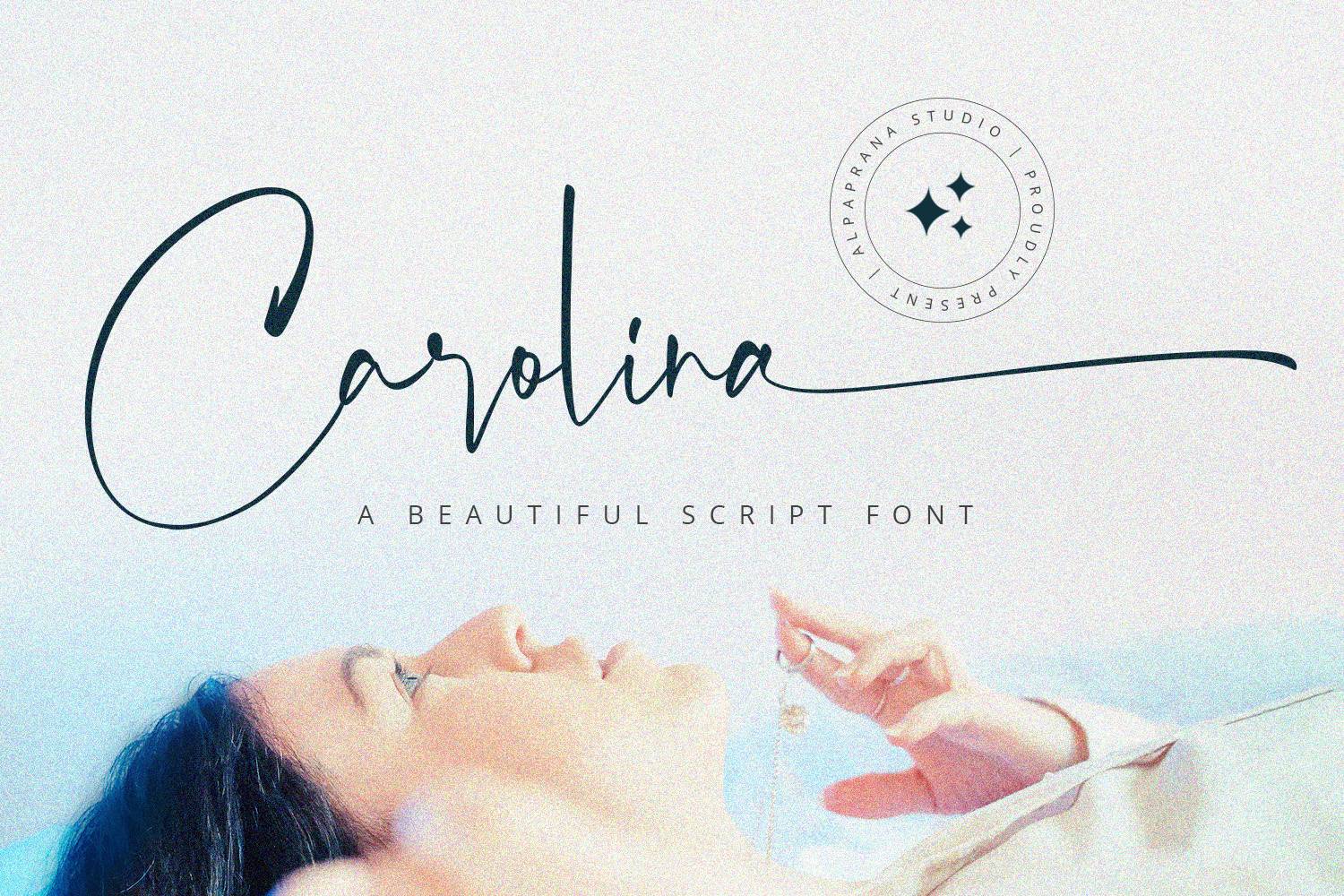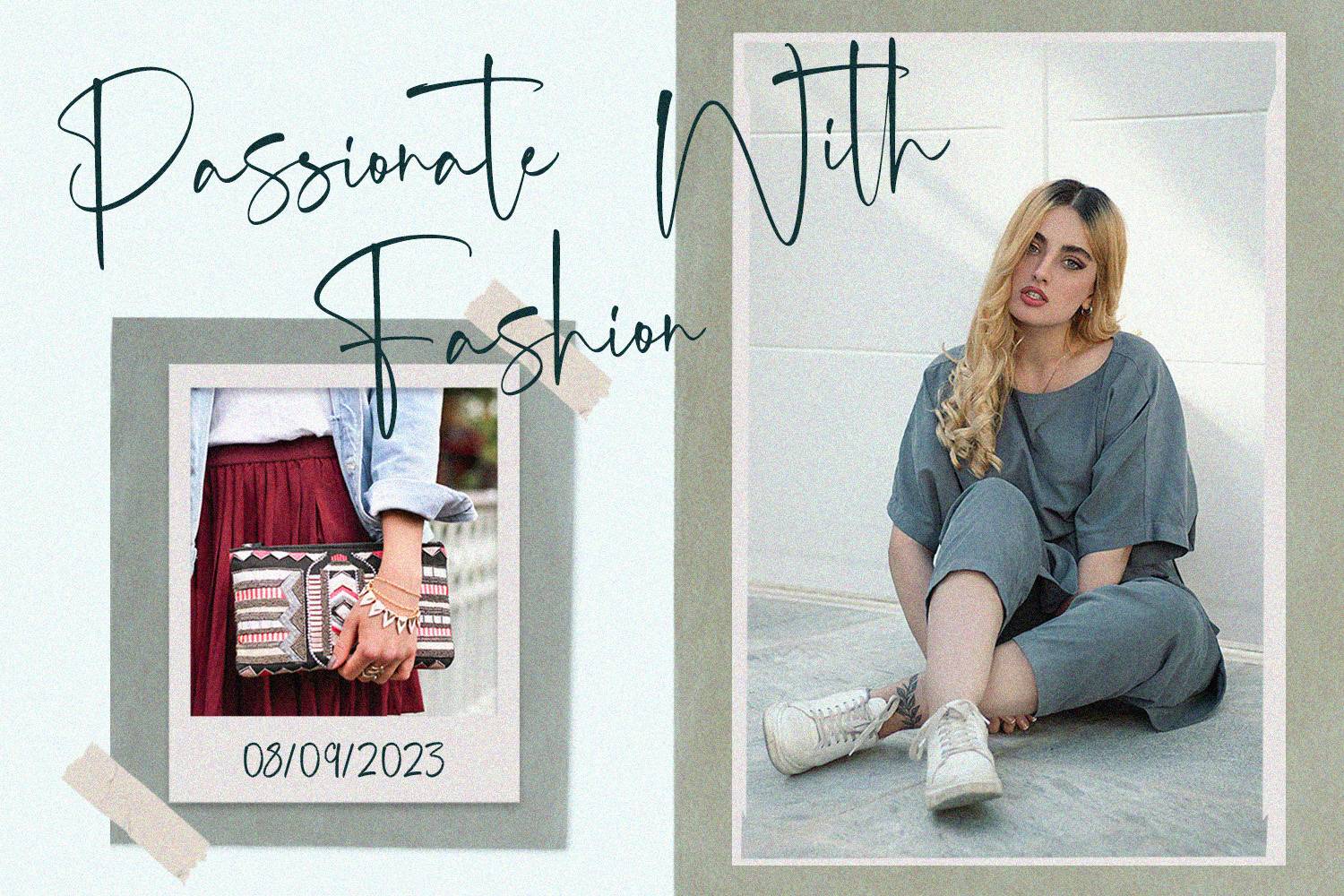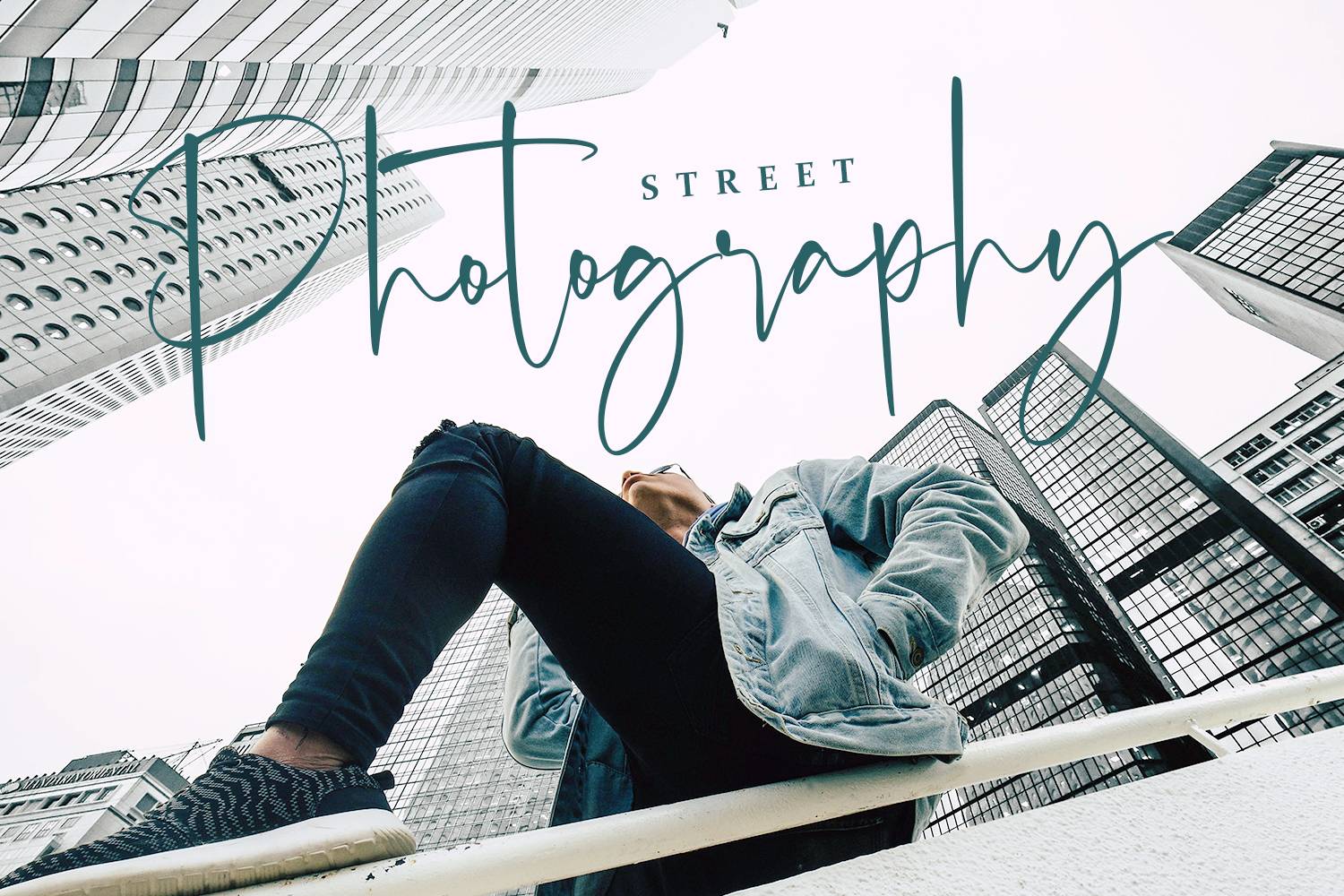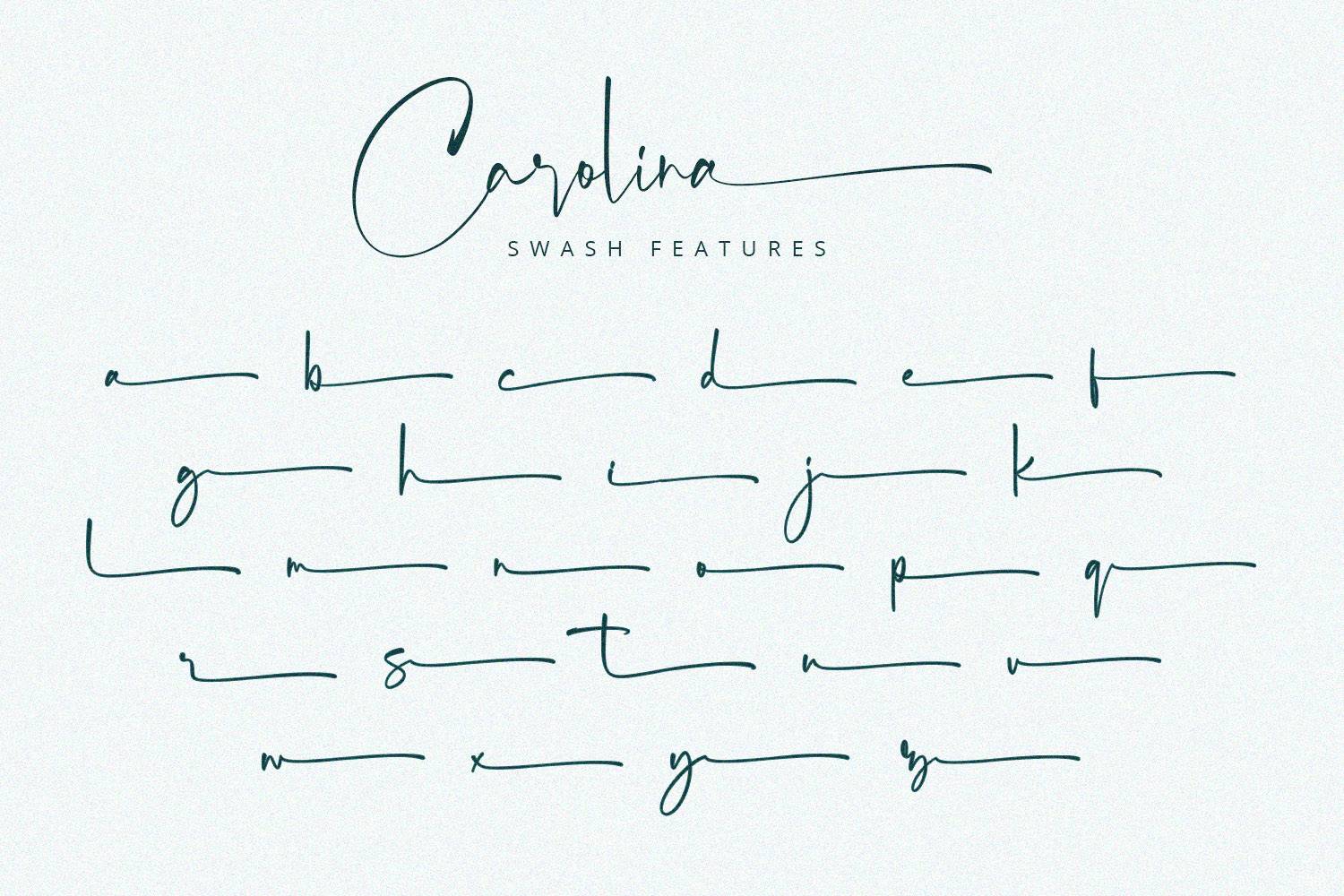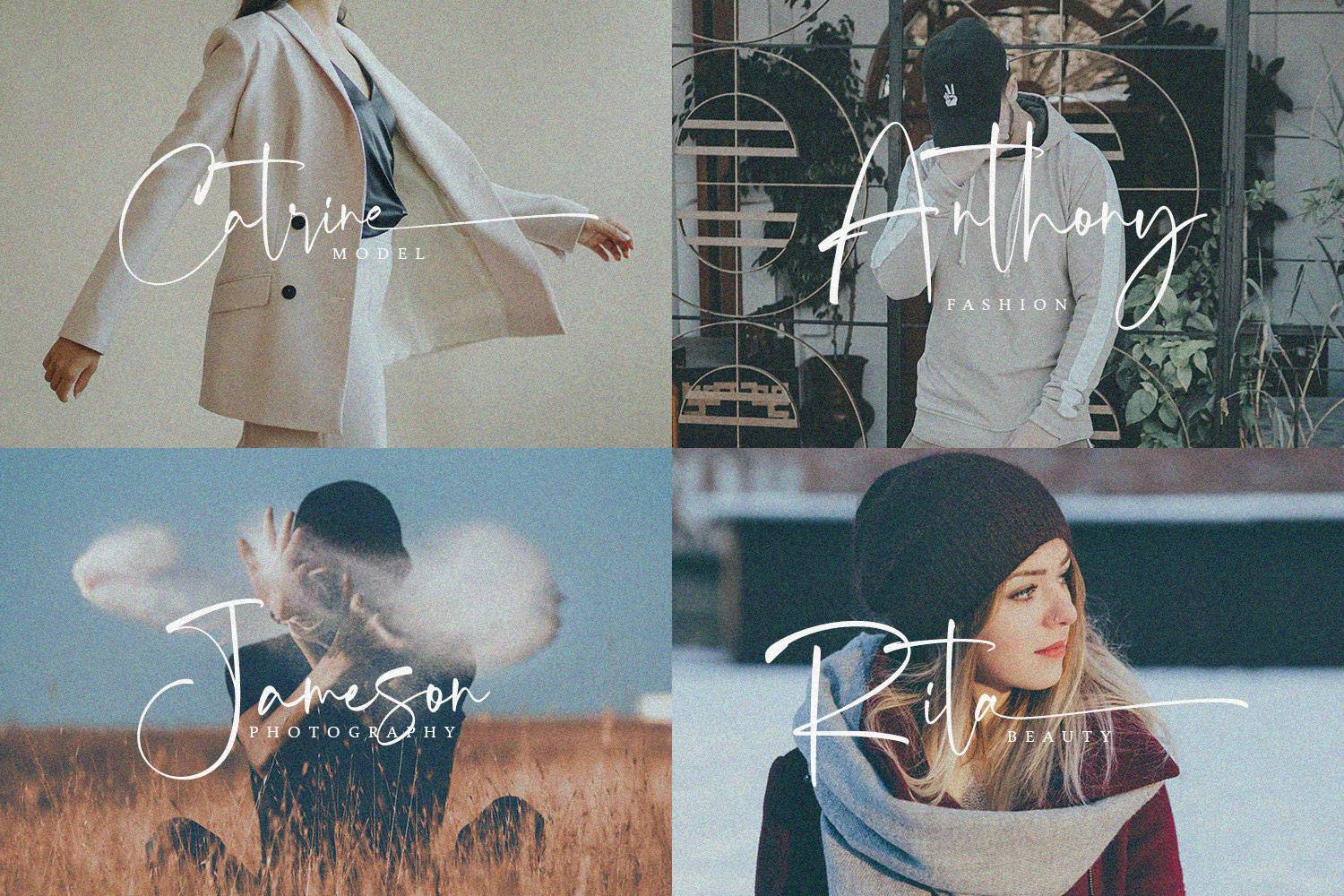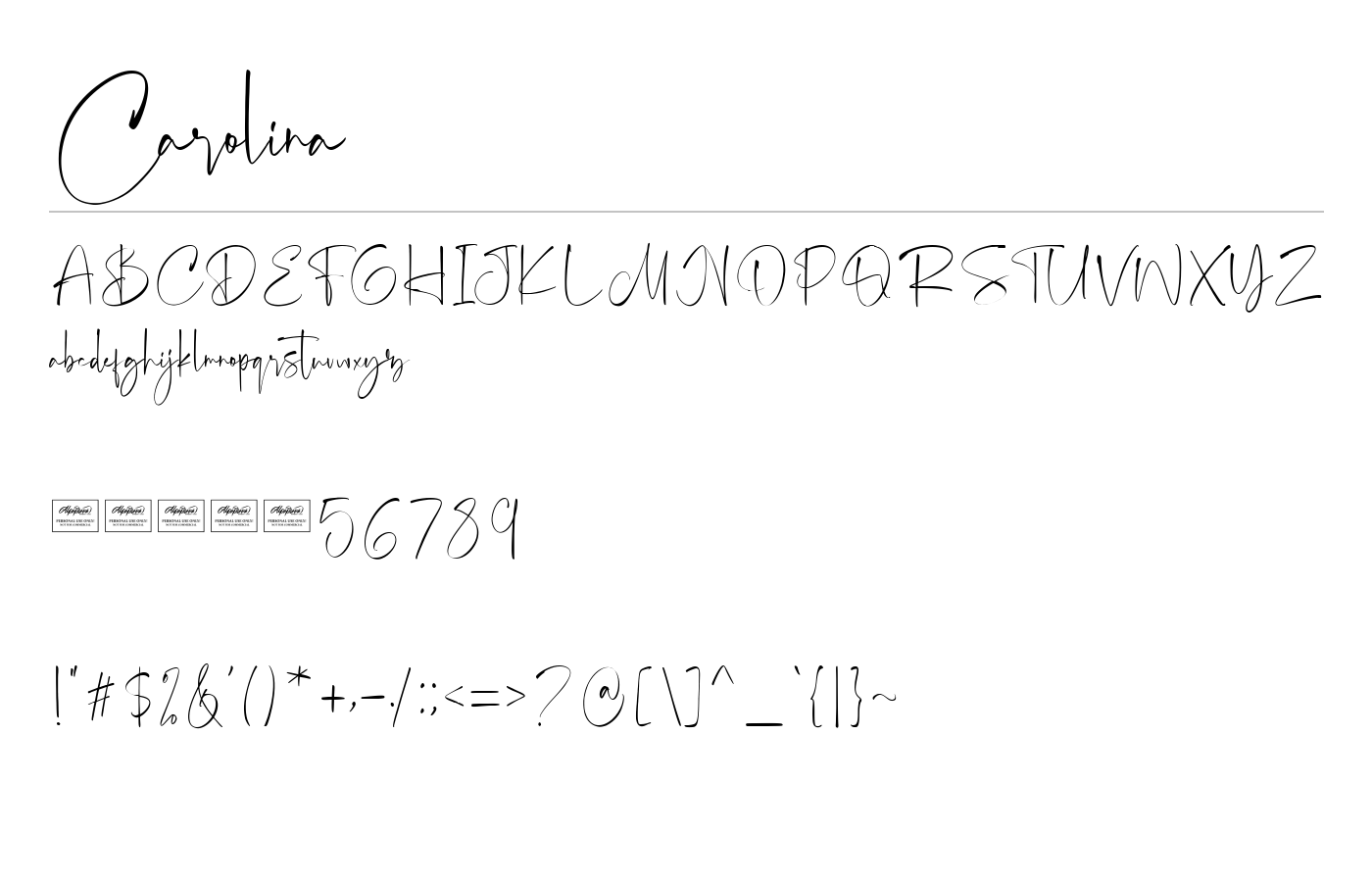
Carolina is a delicate and elegant handwritten script font featuring thin, flowing lines with a casual and airy feel. Its tall, slender letterforms and subtle variations in stroke create a charming and personal touch, making it ideal for invitations, branding, and creative projects that seek a graceful yet approachable style. This font works beautifully where a refined, handwritten look is desired to convey warmth and sophistication.
Carolina Font
About Carolina Font